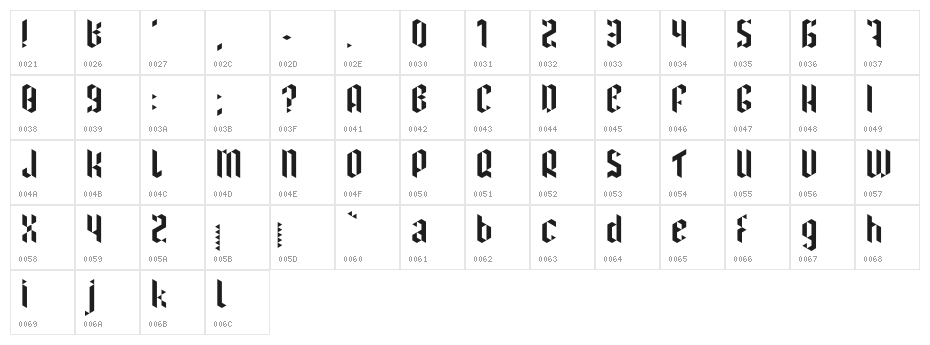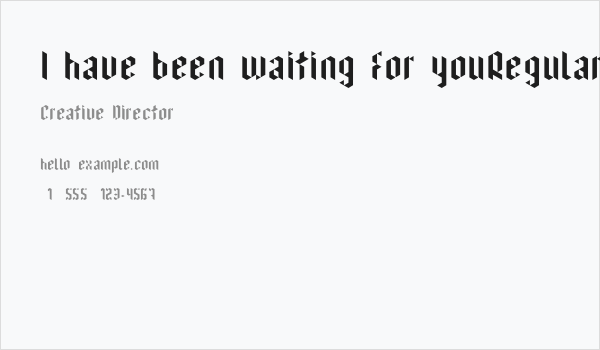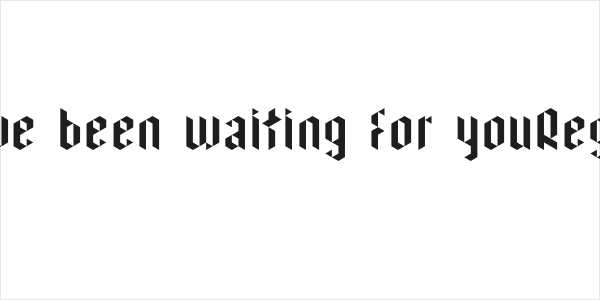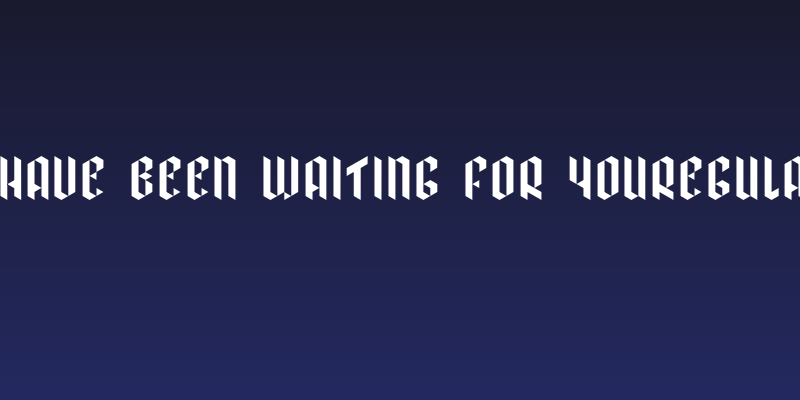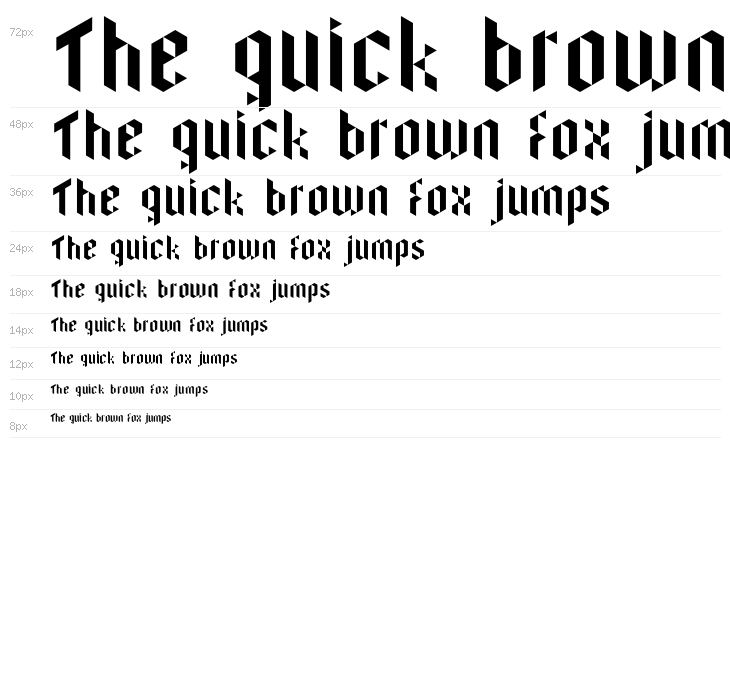
I have been waiting for youRegular Font
I have been waiting for youRegular Description
This font features a bold, geometric design with sharp angles and a distinct, futuristic appearance. The characters are constructed with a series of straight lines and angular cuts, giving them a dynamic and edgy look. The uppercase and lowercase letters maintain a consistent style, with a strong emphasis on vertical and diagonal strokes. Numbers and special characters follow the same geometric pattern, ensuring uniformity across the typeface. The overall aesthetic is modern and striking, making it ideal for projects that require a bold statement.
| Proposed Projects | Ideal for branding, posters, album covers, and any design that needs a modern, edgy look. |